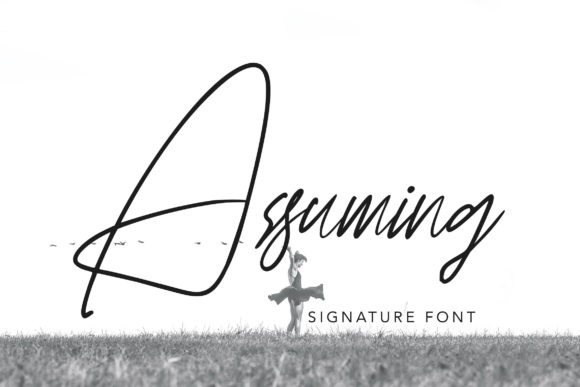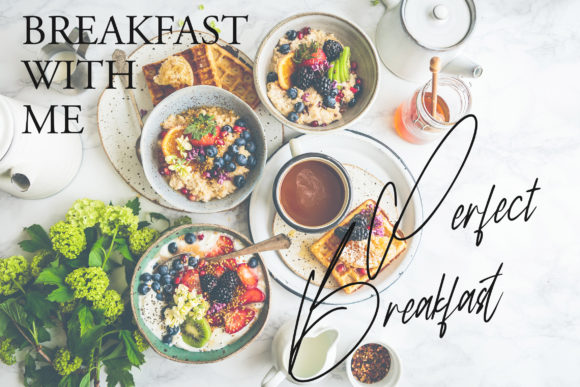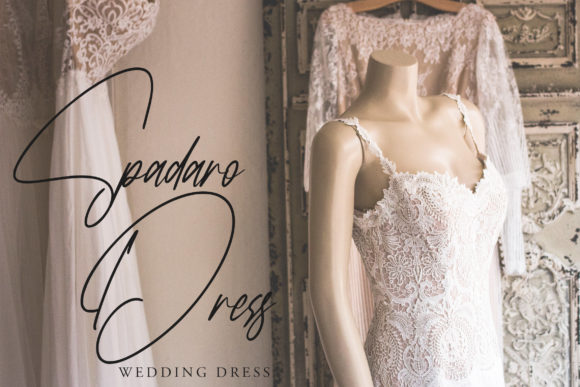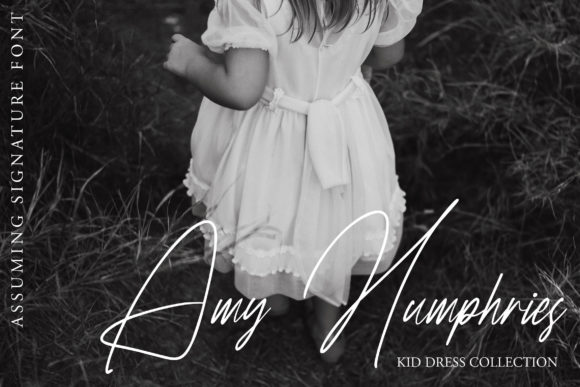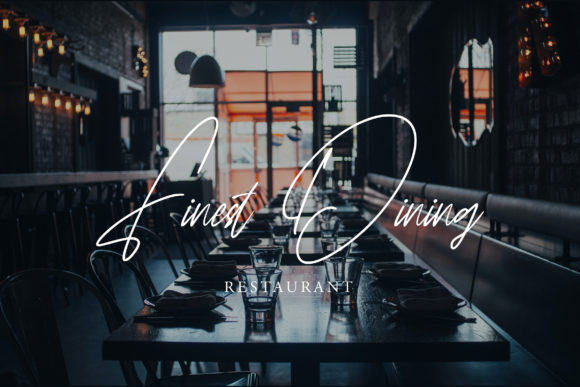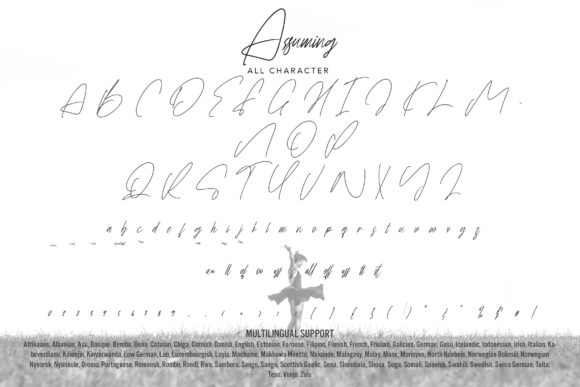
About Assuming Font
Assuming is a romantic and thin calligraphy typeface with characters that dance along the baseline. It will add a luxury spark to any design project that you wish to create!